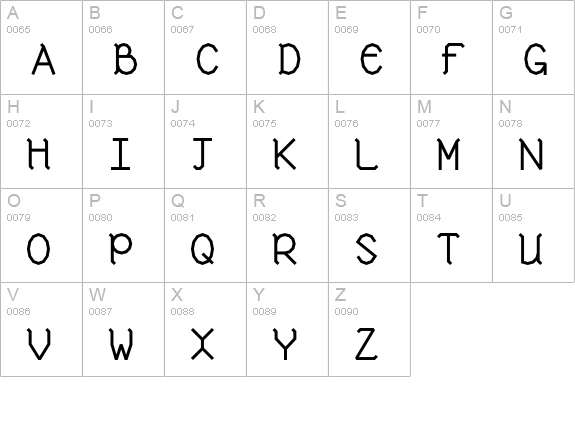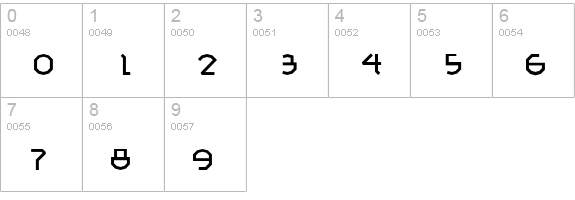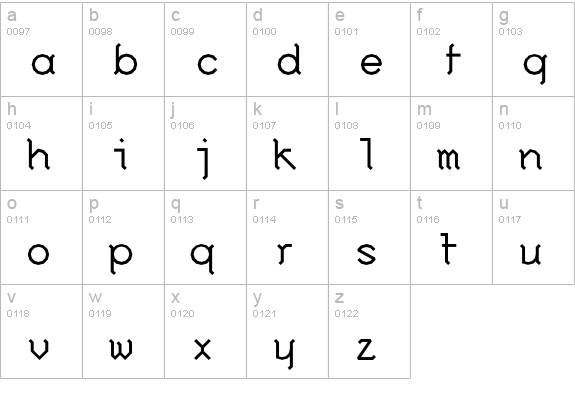
2PTK675 Font Details
Introducing 2PTK675 font - a sleek and modern typeface that effortlessly combines elegance with readability. This versatile font is perfect for a wide range of design projects, from branding to editorial layouts. Its clean lines and contemporary style make it a popular choice for both digital and print applications. What sets 2PTK675 font apart is not only its aesthetic appeal but also its accessibility. This font is freely available to download at FontsMarket.com, making it a valuable addition to any designer's toolkit. Whether you're working on a logo, website, or publication, 2PTK675 font offers a professional and polished look that will elevate your design to the next level. With its timeless design and user-friendly availability, 2PTK675 font is sure to become a favorite among designers seeking a versatile and high-quality typeface. Download it today and see for yourself the impact this font can have on your next project.